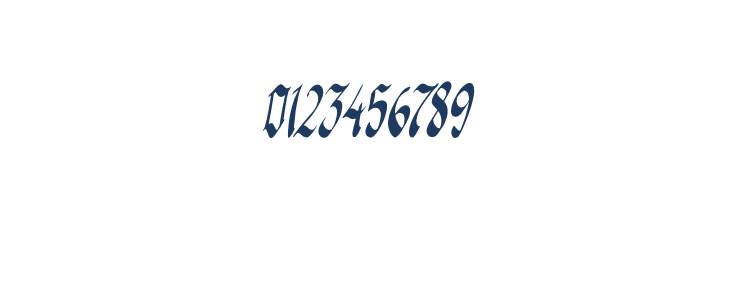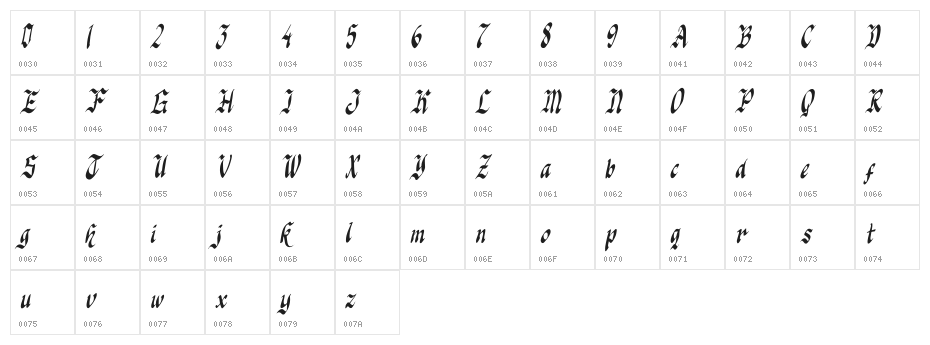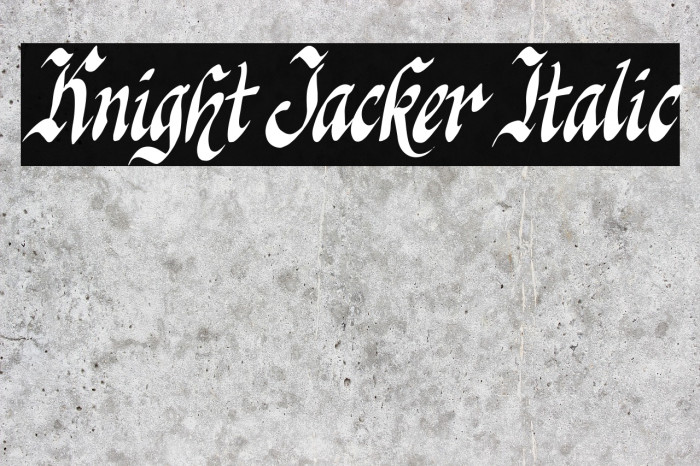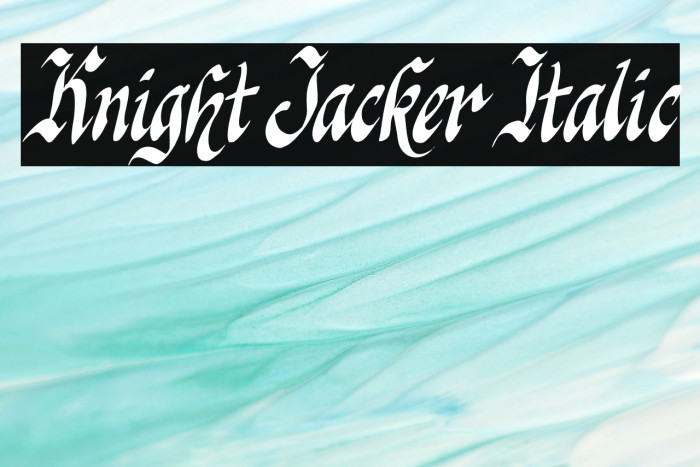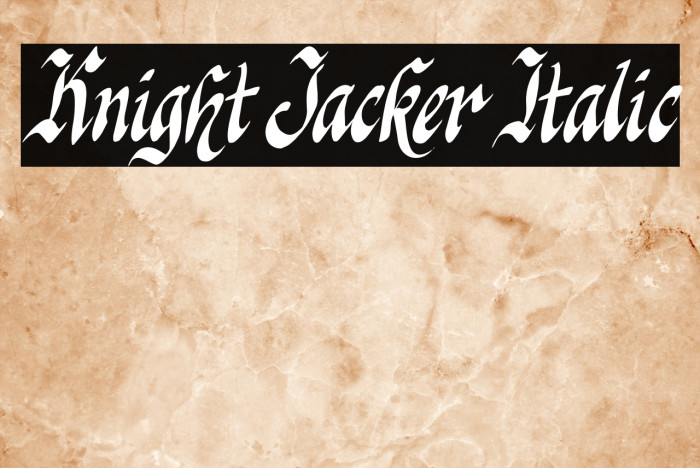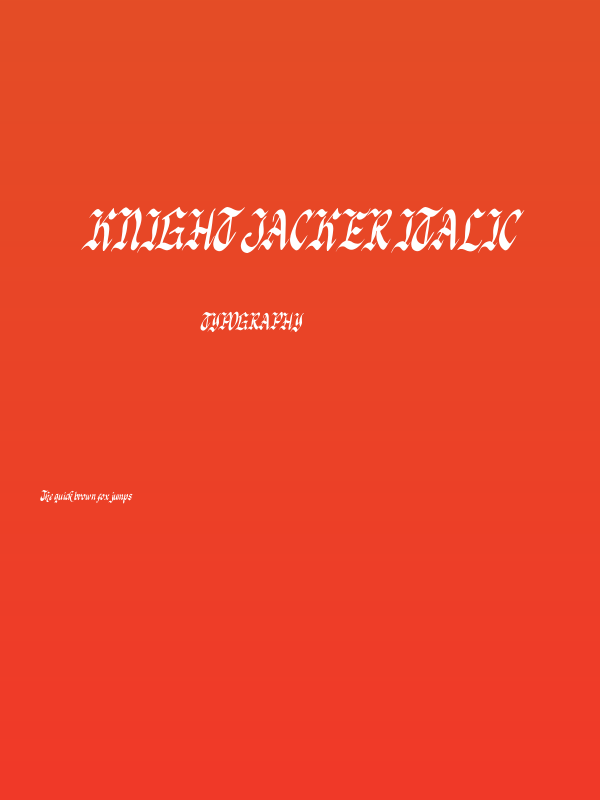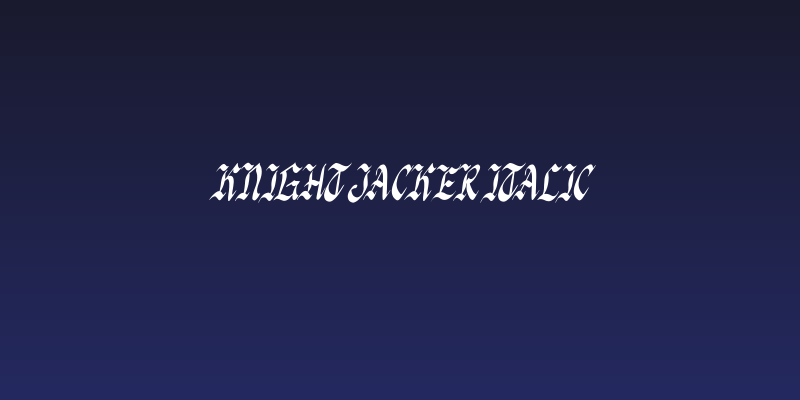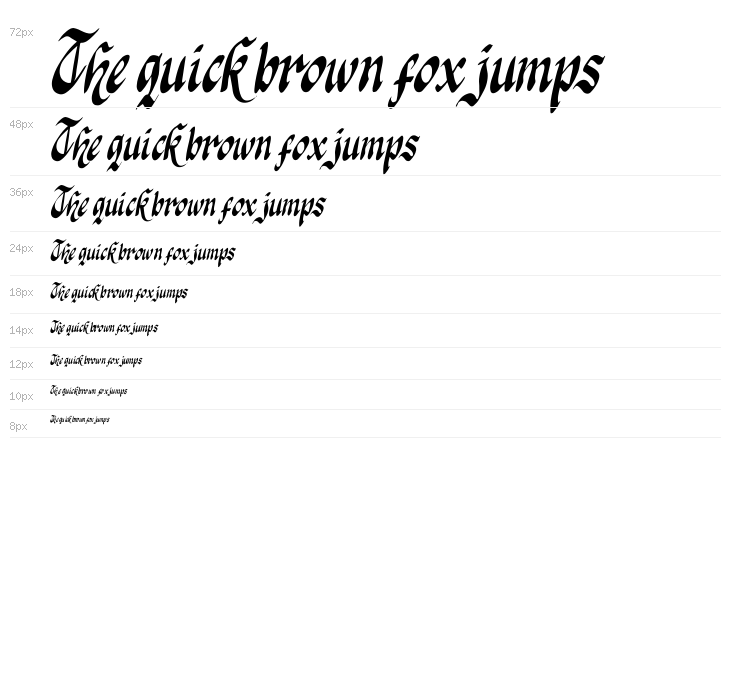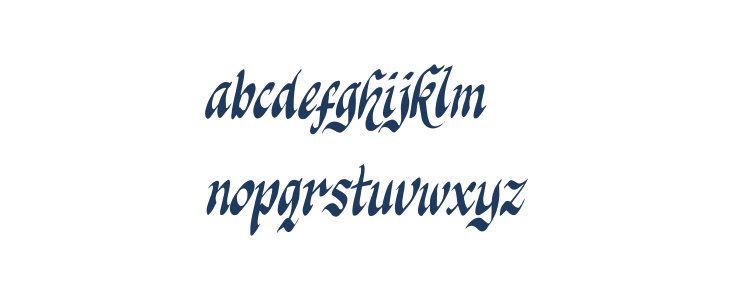
Knight Jacker Italic Font
Knight Jacker Italic Description
This font exhibits a bold and dramatic style, reminiscent of traditional calligraphy with a modern twist. The characters are sharply defined with high contrast between thick and thin strokes, giving it a dynamic and energetic appearance. The uppercase letters are particularly ornate, featuring elaborate flourishes and angular shapes that convey a sense of strength and elegance. The lowercase letters maintain a consistent style, with a slightly more subdued flair. Numbers and special characters are crafted to match the overall aesthetic, ensuring a cohesive look across all text elements. This font's italicized form adds a sense of movement and fluidity, enhancing its visual impact.